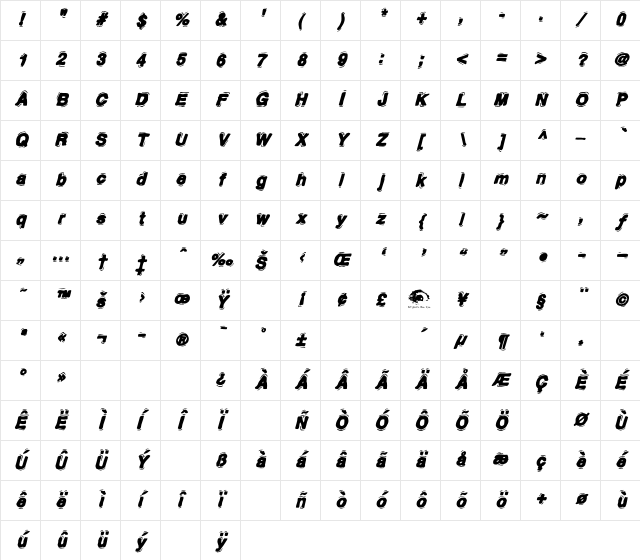
MotherlodeLoadedAOE Italic Free Font
MotherlodeLoadedAOE Italic
Design Context for MotherlodeLoadedAOE
MotherlodeLoadedAOE is a composed and adaptable typeface that performs quietly and consistently across a wide range of design contexts. The slanted form adds forward momentum and visual energy.
Pro Tip: Use MotherlodeLoadedAOE for emphasis, pull quotes, and subheadings where its slanted energy can add rhythm to the layout.